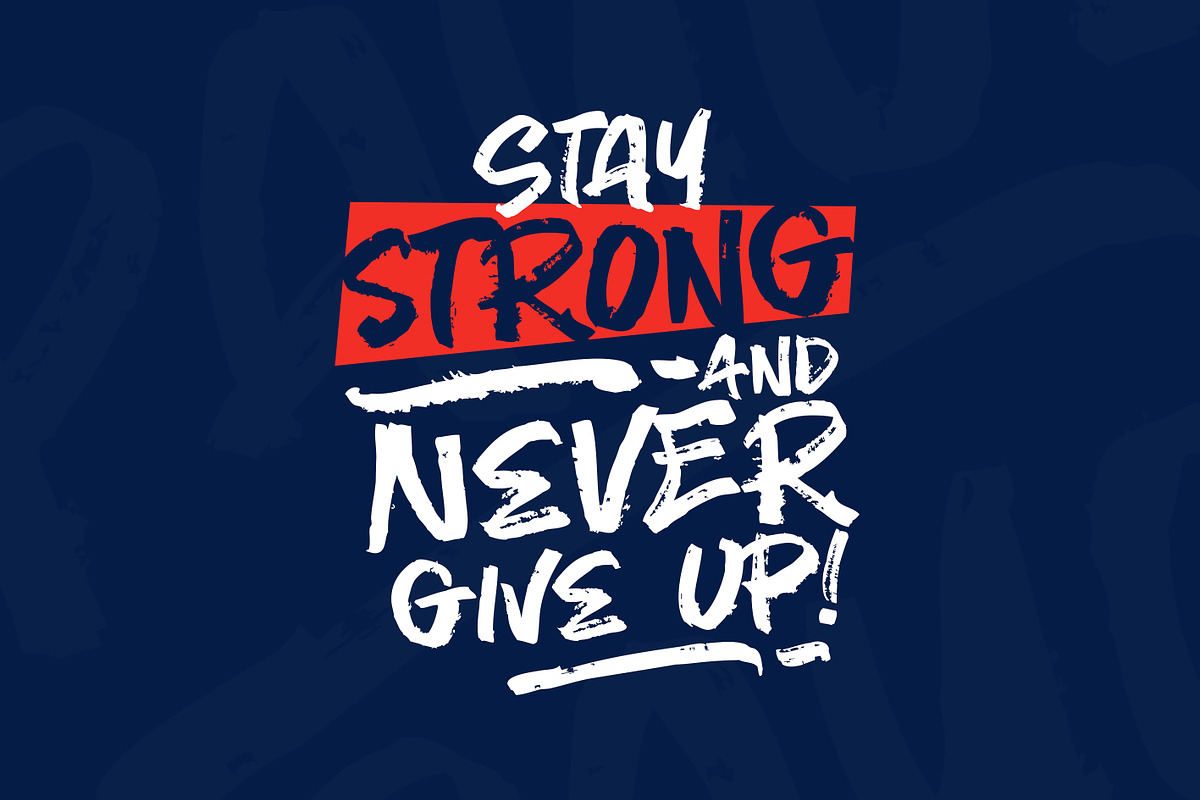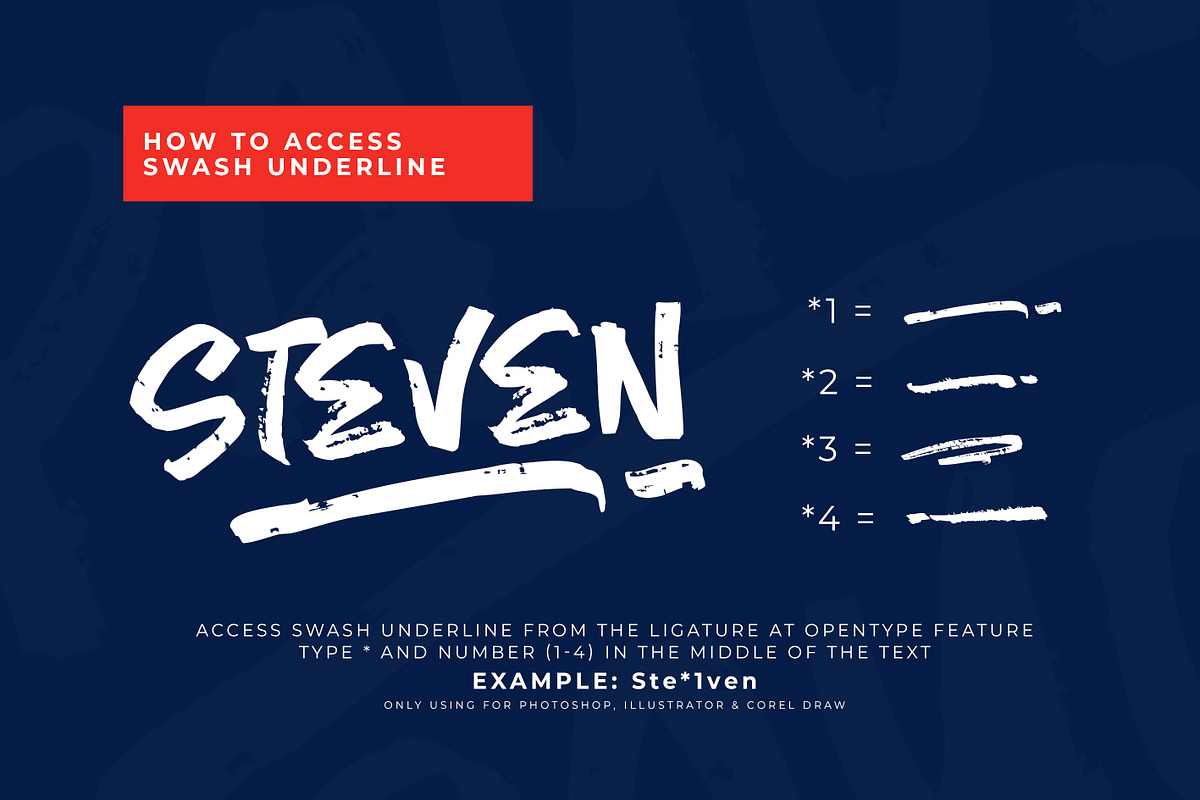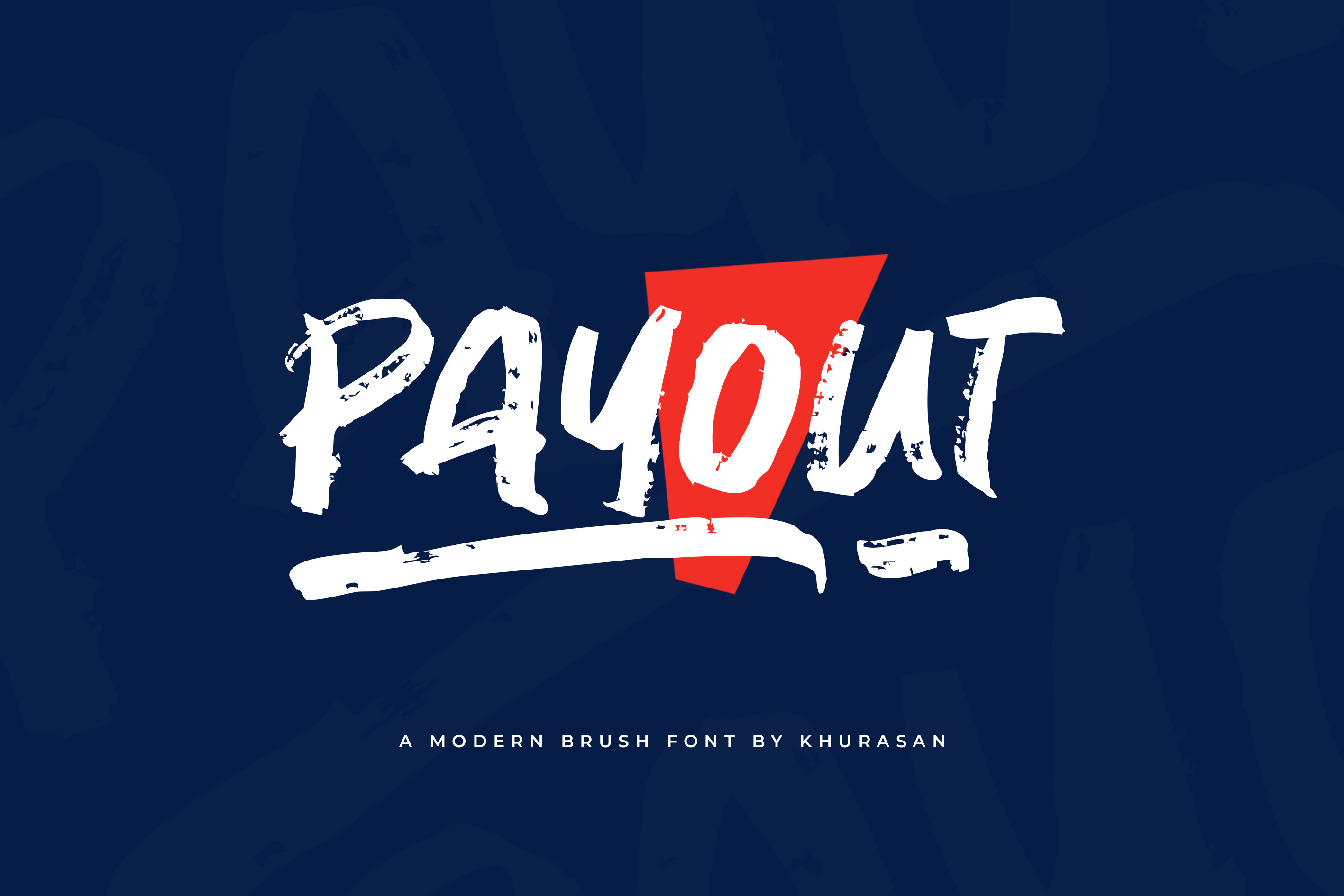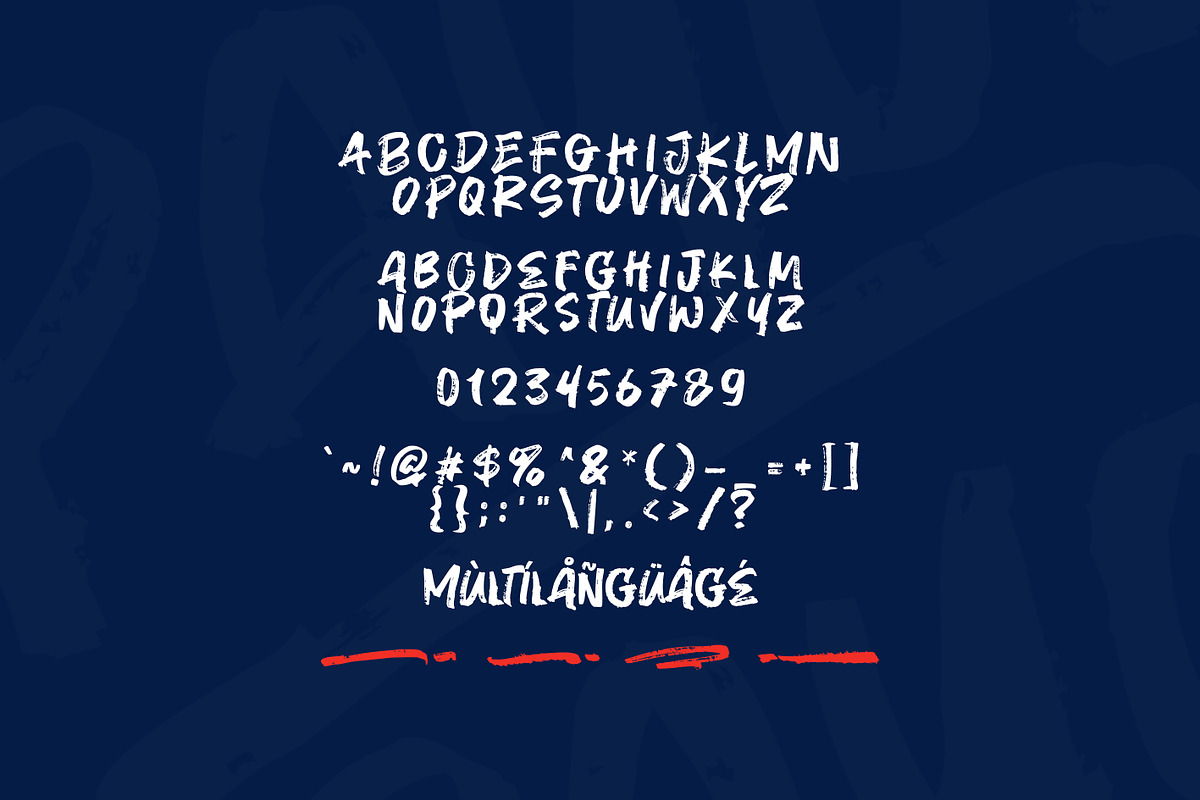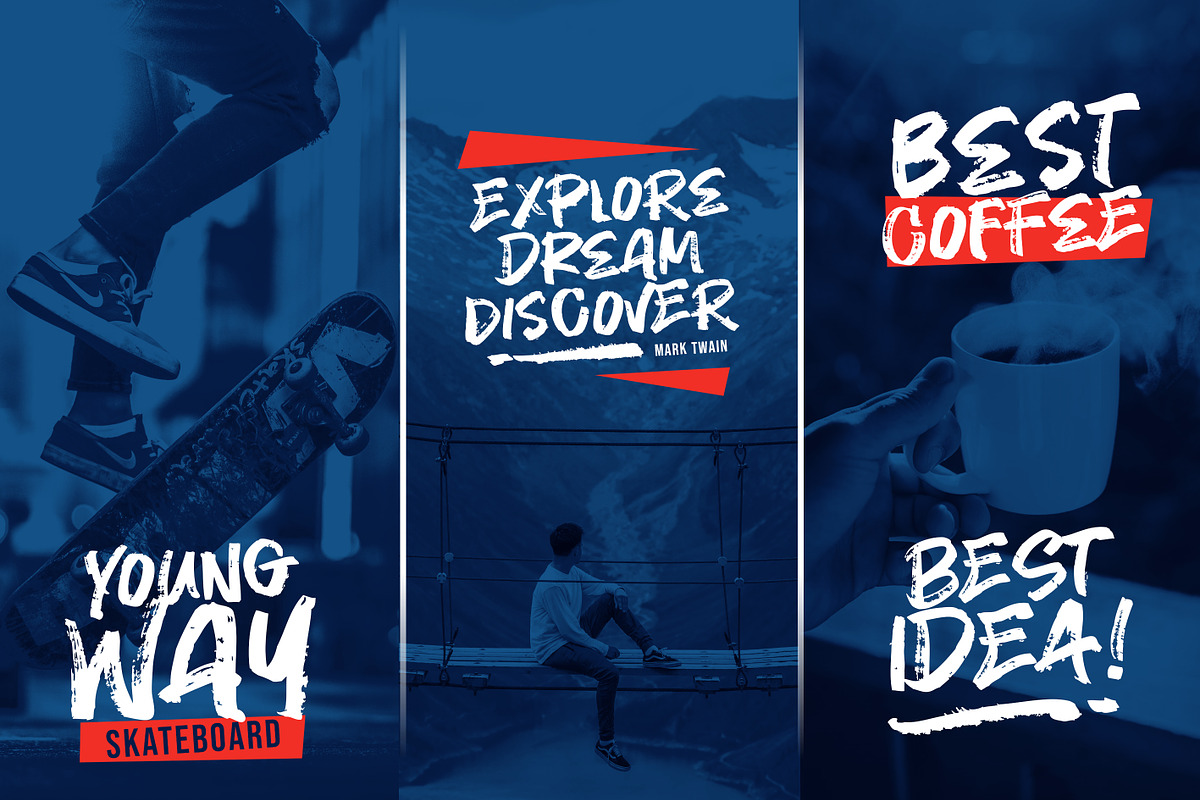
Payout Brush Font
Payout is a modern brush font. Payout font suitable for logo, branding, greeting card, poster and any design that you create…!
Khurasan